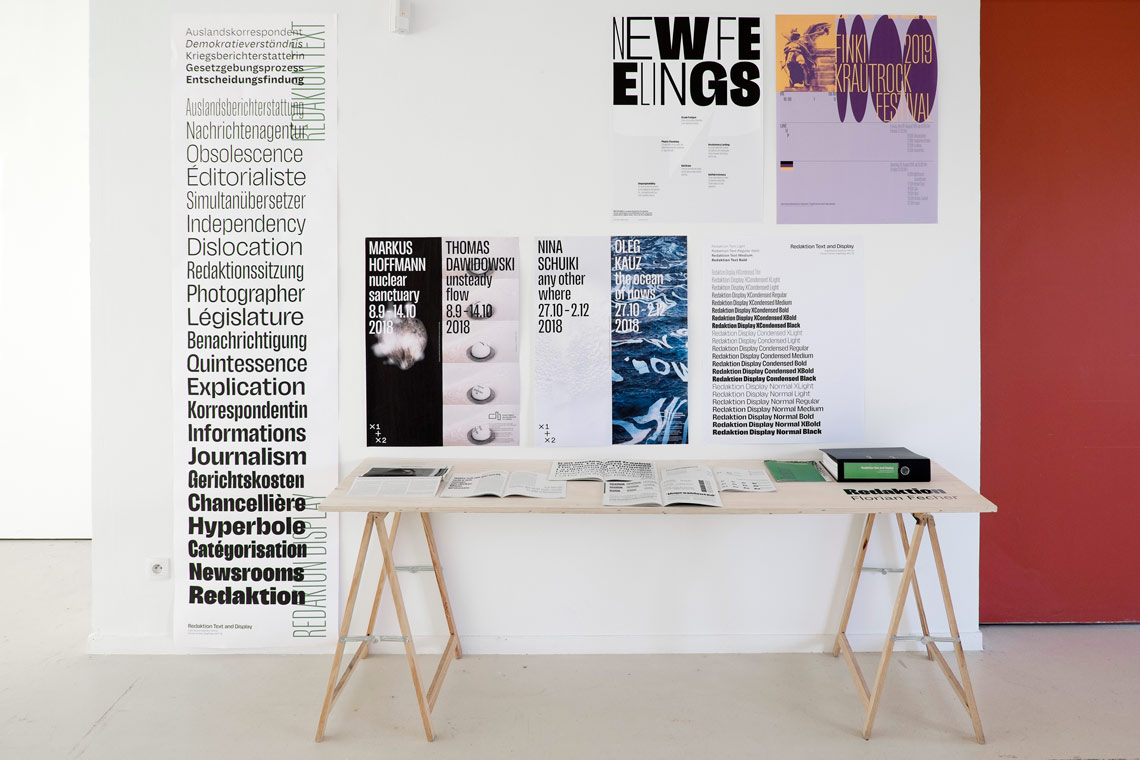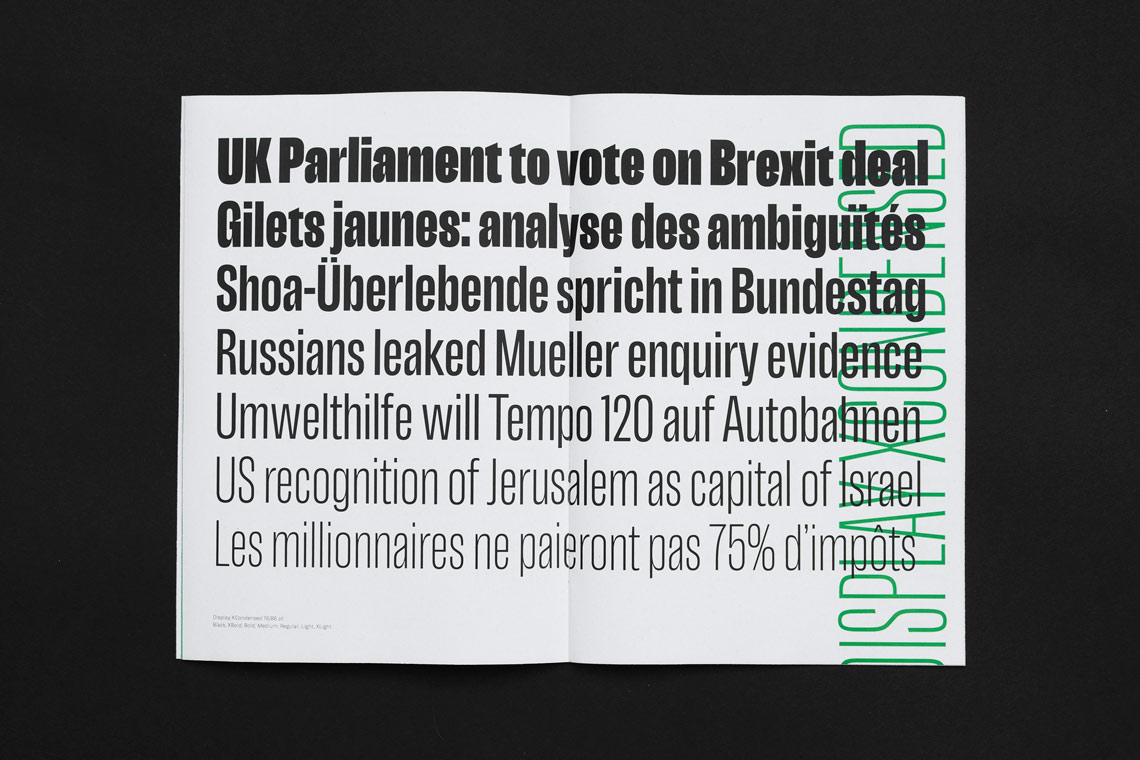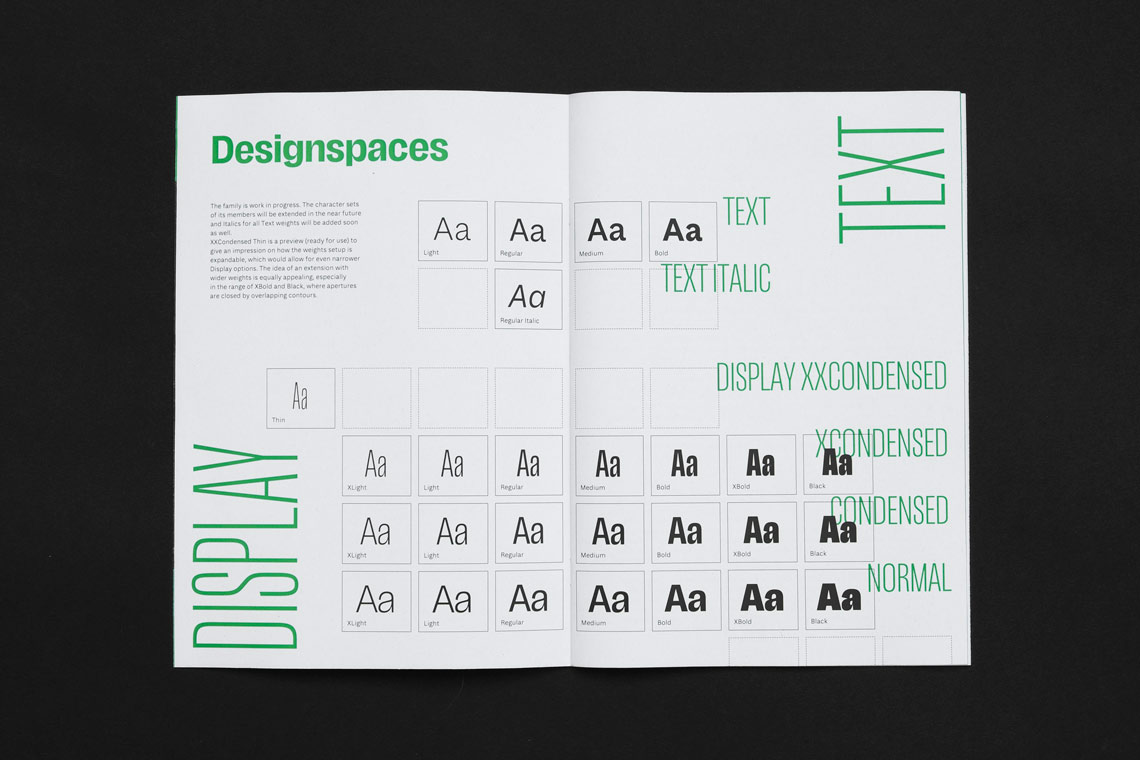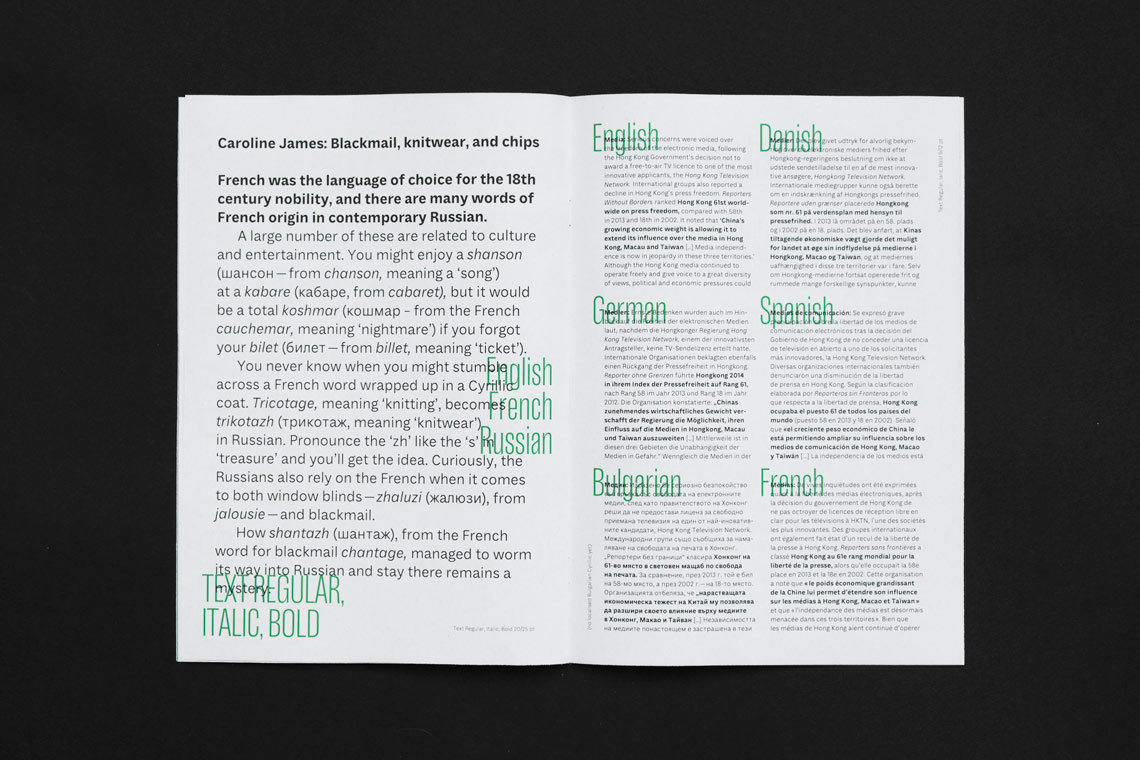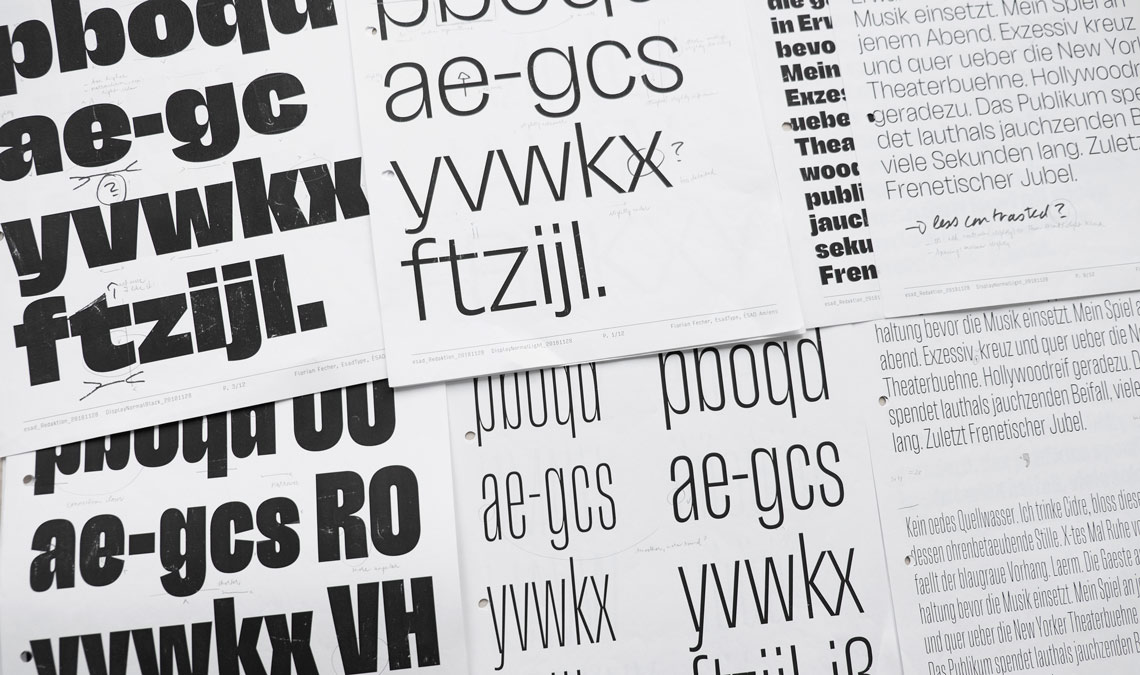
Interview with 2019 Gerard Unger Scholarship winner Florian Fecher
The winner of the fifth Gerard Unger Scholarship, awarded by TypeTogether font foundry to talented young type designers, is Florian Fecher, German graphic and type designer and 2019 ESAD Amiens Type Programme graduate.
Photos from the graduation exhibition setup. Posters design credits: Florian Fecher, Fátima Lázaro, Leonie Rapp, and Pierre-Henri Terrade.
Hello Florian, do you still remember your first encounter with type? How did you become a type lover?
I have had a long-lasting fascination for what can be subsumed under the marvellous German noun ‘schrift’. Though missing from English vocabulary, it functions amongst others as an umbrella term to refer to composed characters implemented by writing, calligraphy, lettering, and typography.
An advance notice was probably my interest in handwriting and graffiti that developed during childhood. The initial spark of my love of type happened later while watching Gary Hustwit’s Helvetica documentary. That passion in hate, love, and all the emotions in between was contagious. I had watched it prior to commencing my communication design studies at the FH Würzburg in Germany. Type was something I wanted to learn about as much as possible: taking typography courses, typeface design introduction, summer school, interning at FontShop International, and Slanted blog and magazine. A lot of reading helped me acquire knowledge off-curriculum, as well as working at the library, attending conferences, and engaging on Twitter.
Since you were carefully following the news from the font world, you must have been quite familiar with the work of TypeTogether, right?
Yes, educational discounts like those of TypeTogether were a good way to start building a font collection with proper licensing early on. I have been using typefaces released by TypeTogether for years now, such as the first family bundle I purchased as a student. It was by chance Capitolium 2, designed by Gerard Unger. The body copy accompanying my bachelor project — two display typefaces based upon enamel street signs from Würzburg — was set in Abril Text.
So the submission of your typeface Redaktion (working title) to the Gerard Unger Scholarship seems to be a logical next step.
There is indeed a close connection between the scholarship submission and my postgraduate studies. Two former ESAD alumni had been chosen for TypeTogether’s Incentive Programme before it was reformulated as the Gerard Unger Scholarship. That was one of the reasons I took this course into consideration and finally decided to apply to ESAD Amiens.
How do you expect Redaktion to improve thanks to the scholarship?
With a scholarship named after Gerard Unger, expectations arise that I will aspire to live up to. The funding will of course allow me to concentrate on this work for some time, and I plan on embracing the entire process as positive pressure.
There are many aspects in which the design will improve due to TypeTogether’s feedback. For instance, the part of the family optimised for body copy was the initial starting point, but it now feels too disconnected. I want to harmonise Redaktion Text with the more interesting Display while keeping distinctive character traits that enhance readability.
TypeTogether has always maintained a very cooperative environment. How do you feel about authorship and cooperation in favour of a better result?
I developed ideas, have drawn bézier curves, and originated the design. That is my authorship. But my typeface has roots in other people’s work as well. Grotesk typefaces by the German foundry Schelter & Giesecke were a major source of inspiration, for example. The initial concept evolved through feedback from teachers, externals, and fellow students. Some contributions were already quite substantial, especially regarding design space and solving interpolation issues. I am taking all the professional help offered to finish the family, and working now within TypeTogether’s foundry structure toward a release feels like an obvious continuation of this process.
When we go further in the life of a typeface, once the final product leaves the hands of type designers and font engineers, where should it go? Who is your ideal Redaktion typeface user?
I am curious to see it employed in ways I didn’t anticipate, but the family has been developed in the context of magazine news publishing. Some European newspapers have recently started to release new print magazines for reports and other long reads, in-depth analysis, thematic focus series, etc.
I’d love to see it being adopted by one of those, preferably a Display cut for a cheerful headline like, “Brexit cancelled!”
Specimen designed by Florian Fecher for ESADType.
Florian Fecher’s Redaktion specimen, copyright of the text © European Union, https://eur-lex.europa.eu, 1998-2019
Florian Fecher’s Redaktion specimen, copyright of the text © European Union, https://eur-lex.europa.eu, 1998-2019